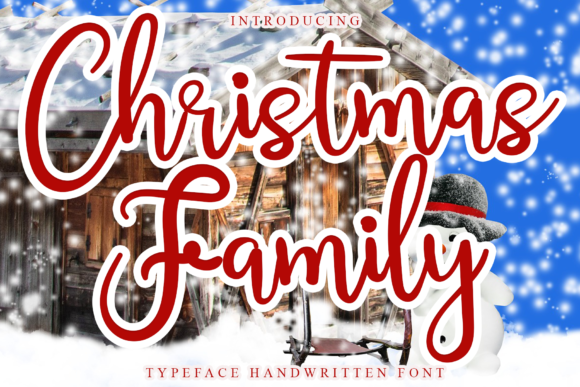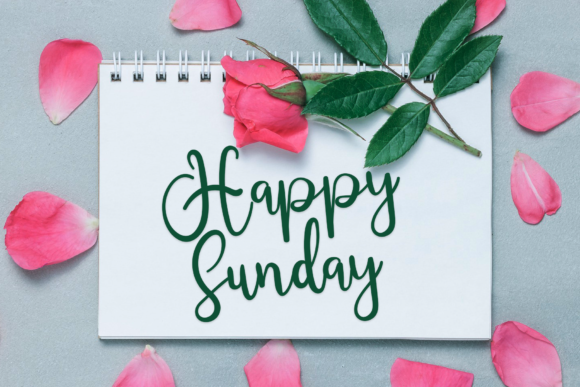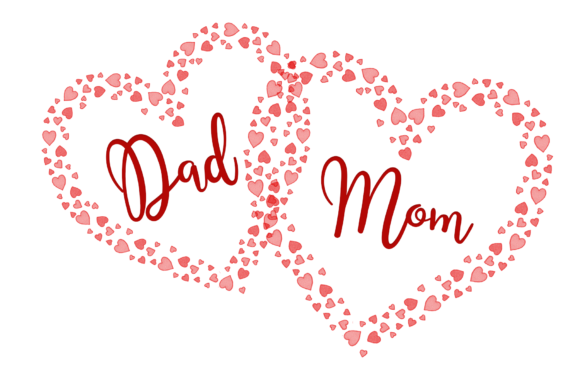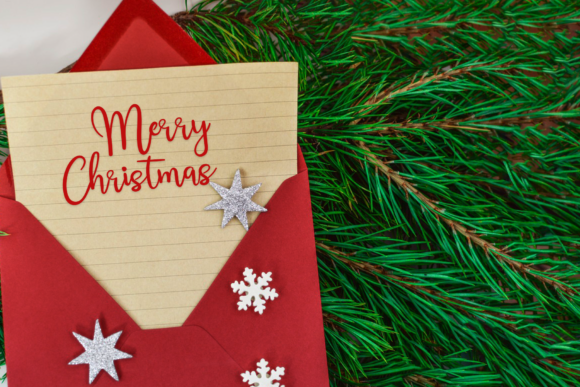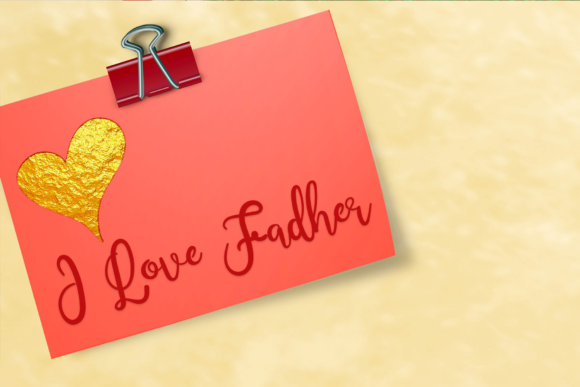
The Perfect Font for a Holiday Touch
As a designer, there’s nothing quite like the feeling of creating something special for a loved one – whether it’s a wedding invitation, a holiday card, or a personalized gift. And for many of us, the holiday season is the perfect time to get creative and show our loved ones just how much we care. But what sets a design apart from the rest? For me, it’s all about the font – and that’s where the Christmas Family Font comes in.
This sweet and delicate handwritten font is the perfect addition to any holiday design. With its dainty and joyful feel, it’s ideal for adding a romantic, personalized touch to your work. And as a designer, you know just how valuable a versatile font like the Christmas Family Font can be – it’s a must-have for any holiday project.
Christmas Family Font Key Features
- Unique Characteristics: Features a traditional, hand-drawn feel with intricate details and ornaments, perfect for festive designs and holiday projects.
- Style Variations: Offers a range of styles, from bold and playful to elegant and sophisticated, allowing designers to choose the perfect fit for their project.
Designer Review: Christmas Family Font
Overall, the Christmas Family Font has some great qualities that make it a good choice for holiday-themed designs. ✨ One of the things that stands out is the variety of styles and weights, which allows for a lot of flexibility in terms of design possibilities. ✨ The font is also highly legible, making it easy to read even in smaller sizes.
- Wide range of styles and weights to choose from
- Highly legible, even in smaller sizes
- Well-suited for holiday-themed designs, such as Christmas cards and decorations
However, there are some limitations to consider. ⚠️ The font may be too festive or over-the-top for some designs, which could detract from the overall aesthetic. ⚠️ Additionally, the font’s bold and italic styles may not be as polished as some other fonts in the same category.
Overall, I would say that the Christmas Family Font is a solid choice for holiday-themed designs, but may not be the best fit for every project. With a little creativity and restraint, it can be a great addition to your design toolkit.
The Christmas Family Font is perfect for creating festive and fun designs for the holiday season. Some common use cases include:
- Creating custom holiday cards and invitations
- Designing festive social media graphics
- Editing holiday-themed documents and presentations
- Creating custom gift tags and labels